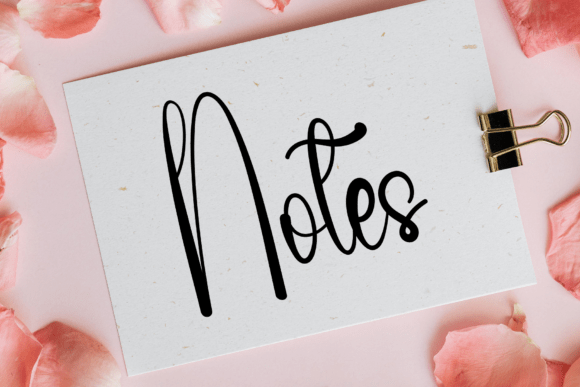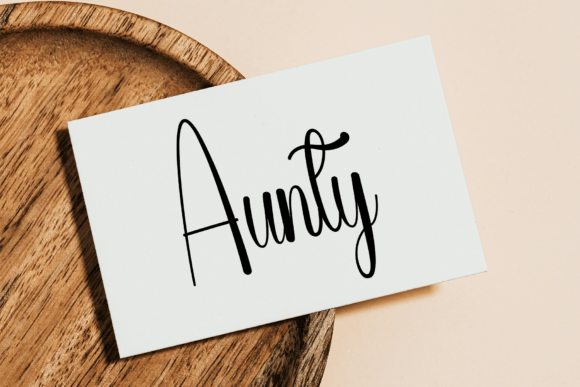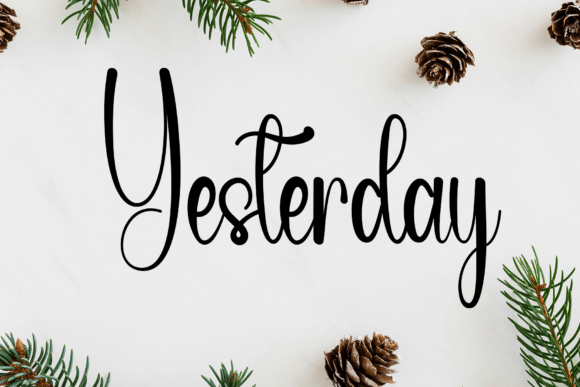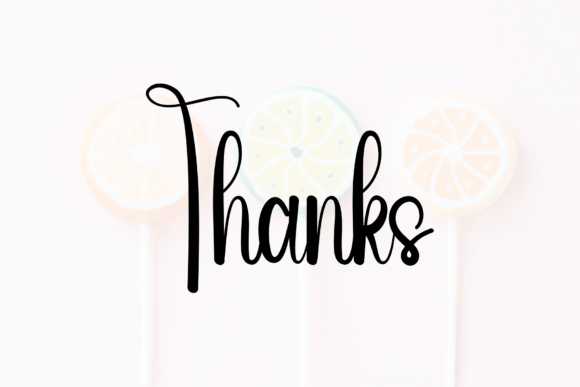
Introducing Belinda Font: The Perfect Blend of Luxury and Casual Elegance
In the world of typography, fonts play a crucial role in defining the aesthetic and tone of a design. For designers and crafters looking for a unique and versatile font, Belinda Font is an excellent choice. This handwritten font, which looks like it was drawn with a marker, offers a relaxed and sporty feel that’s perfect for a wide range of design applications.
What Makes Belinda Font Special?
Belinda Font stands out from other fonts due to its distinctive handwritten style, which gives it a personal and approachable feel. The font’s marker-drawn appearance adds a touch of informality, making it ideal for designs that require a casual yet sophisticated look. Whether you’re working on branding, logos, wedding supplies, greeting cards, fashion lookbooks, or marketing promotions, Belinda Font is a versatile choice that can elevate your design to the next level.
Key Features of Belinda Font
- Handwritten style: Belinda Font boasts a beautiful, handwritten style that adds a personal touch to any design.
- Marker-drawn appearance: The font’s marker-drawn appearance gives it a relaxed and sporty feel that’s perfect for casual designs.
- Luxurious and elegant: Despite its casual nature, Belinda Font exudes luxury and elegance, making it suitable for high-end designs.
- Versatile: This font is versatile and can be used for a wide range of design applications, from branding and logos to wedding supplies and marketing promotions.
Design Applications for Belinda Font
Belinda Font is an excellent choice for various design applications, including:
- Branding: Use Belinda Font to create a unique and memorable brand identity that stands out from the competition.
- Logos: The font’s distinctive style makes it perfect for logos that require a personal and approachable feel.
- Wedding supplies: Add a touch of elegance and sophistication to your wedding designs, such as invitations, programs, and decorations.
- Greeting cards: Belinda Font is ideal for creating beautiful and heartfelt greeting cards for special occasions.
- Fashion lookbooks: Use the font to create stylish and luxurious lookbooks that showcase your fashion designs.
- Marketing promotions: Belinda Font can add a touch of sophistication and elegance to your marketing materials, such as brochures, flyers, and posters.
Why Choose Belinda Font?
With so many fonts available, why choose Belinda Font? Here are a few reasons:
- Unique style: Belinda Font offers a unique and distinctive style that sets it apart from other fonts.
- Versatility: The font’s versatility makes it suitable for a wide range of design applications.
- Elegance and sophistication: Belinda Font exudes luxury and elegance, making it perfect for high-end designs.
In conclusion, Belinda Font is an excellent choice for designers and crafters looking for a unique and versatile font. Its handwritten style, marker-drawn appearance, and luxurious feel make it perfect for a wide range of design applications. Whether you’re working on branding, logos, wedding supplies, or marketing promotions, Belinda Font is a great choice for adding a touch of elegance and sophistication to your designs.